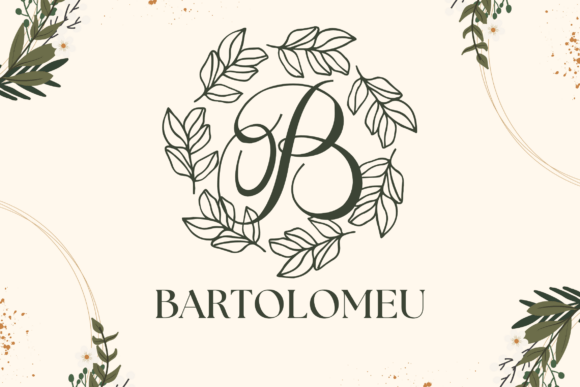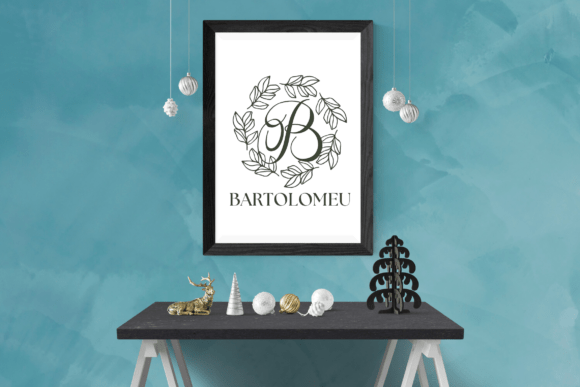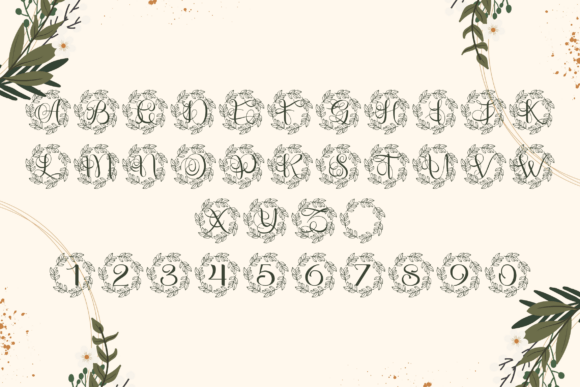
Introduction to Laurisia Monogram Font
Meet Laurisia, the Monogram Font Laurisia Monogram turns simple initials into graceful laurel-inspired emblems that feel elegant, romantic, and premium.
The strokes are smooth and balanced, so letters stay clear at any size Because counters remain open, tiny tags print crisp while large signage looks refined and formal.
Key Features of Laurisia Monogram Font
Why Choose Laurisia Monogram Font?
Laurisia Monogram Font offers exceptional quality and versatility, making it a valuable addition to your design toolkit. Whether you’re creating for personal projects or commercial use, Laurisia Monogram Font delivers professional results.